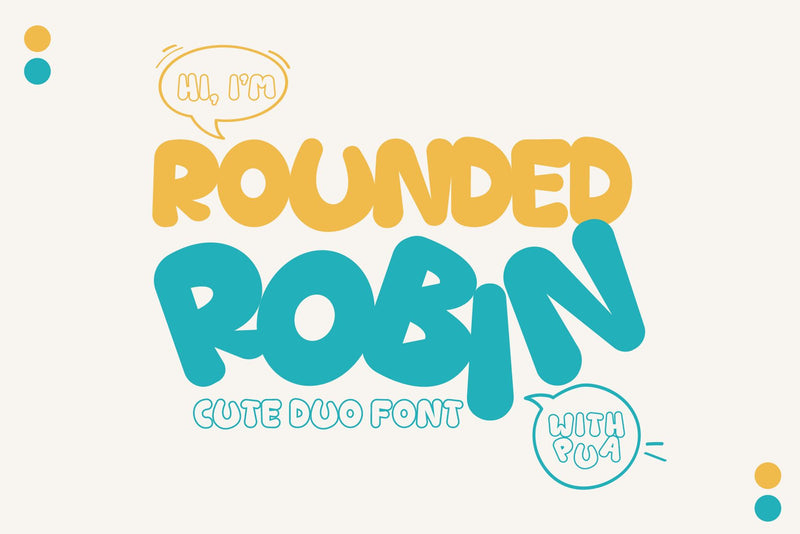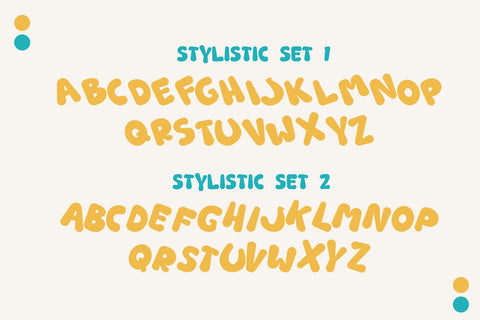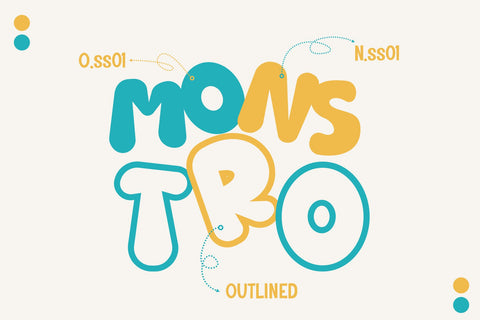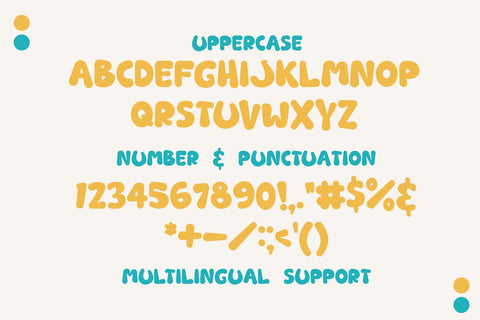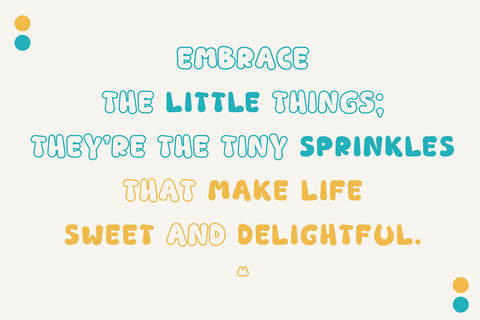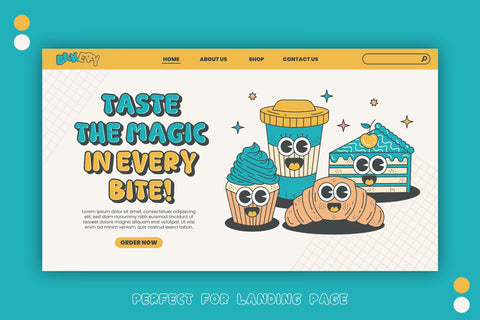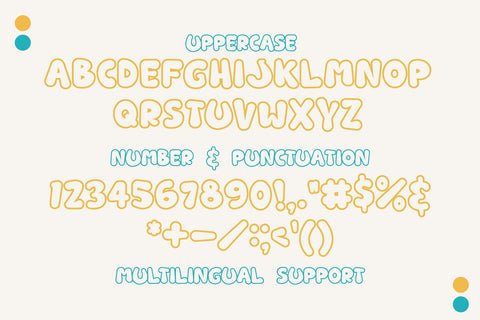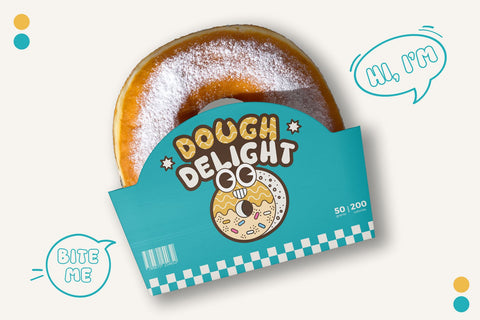
Rounded Robin - Cute and Girly Duo Display Font
Rounded Robin is a charming and playful display font that brings a touch of sweetness and warmth to any creative project. It features two distinct styles—solid and outline—making it a versatile choice that opens up a wide range of design possibilities. Additionally, the font includes stylistic alternates that allow for even more customization, enabling you to craft truly unique and personalized designs. Rounded Robin is perfect for projects with themes that are kid-friendly, educational, baby-centric, or have a girly vibe. Whether you’re designing packaging, creating cute logos, illustrating book covers, or building eye-catching landing pages, this font adds a delightful, whimsical touch to your work.
- Solid and Outlined characters